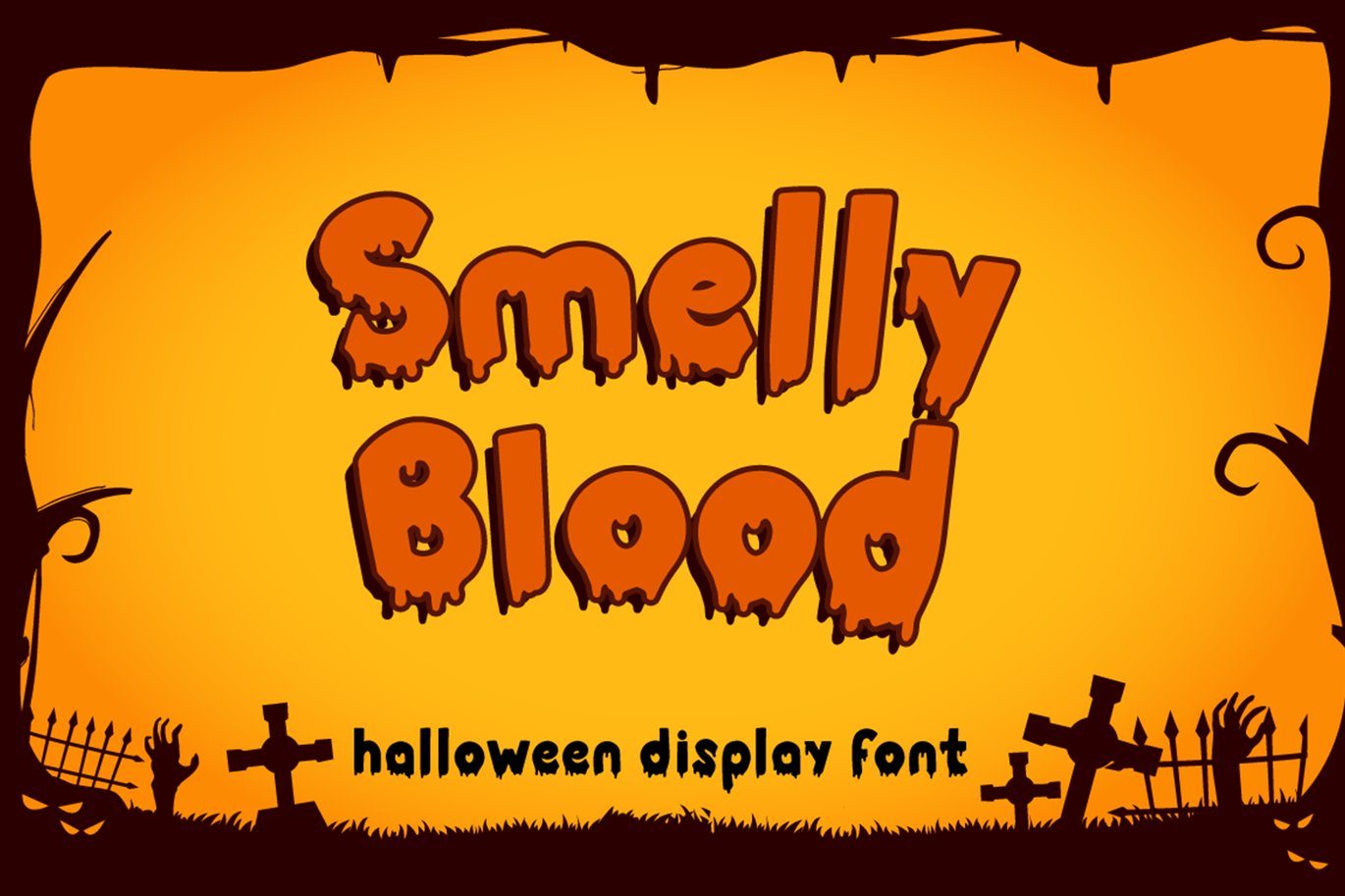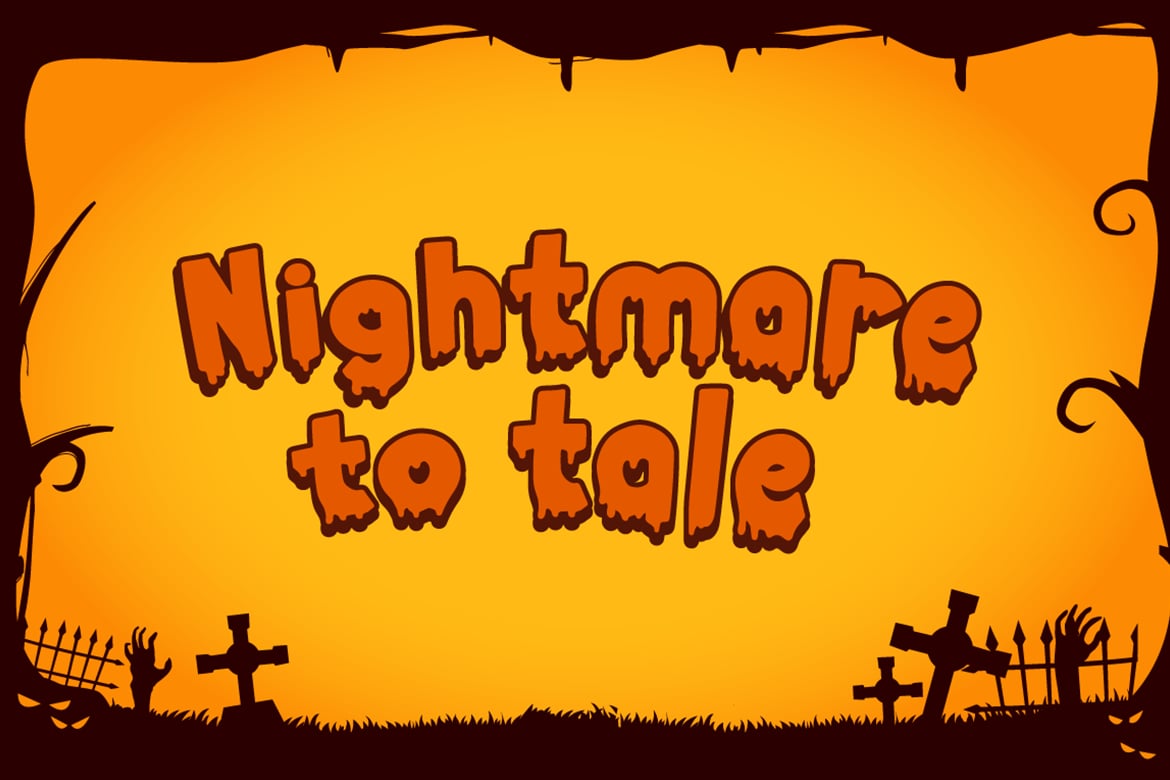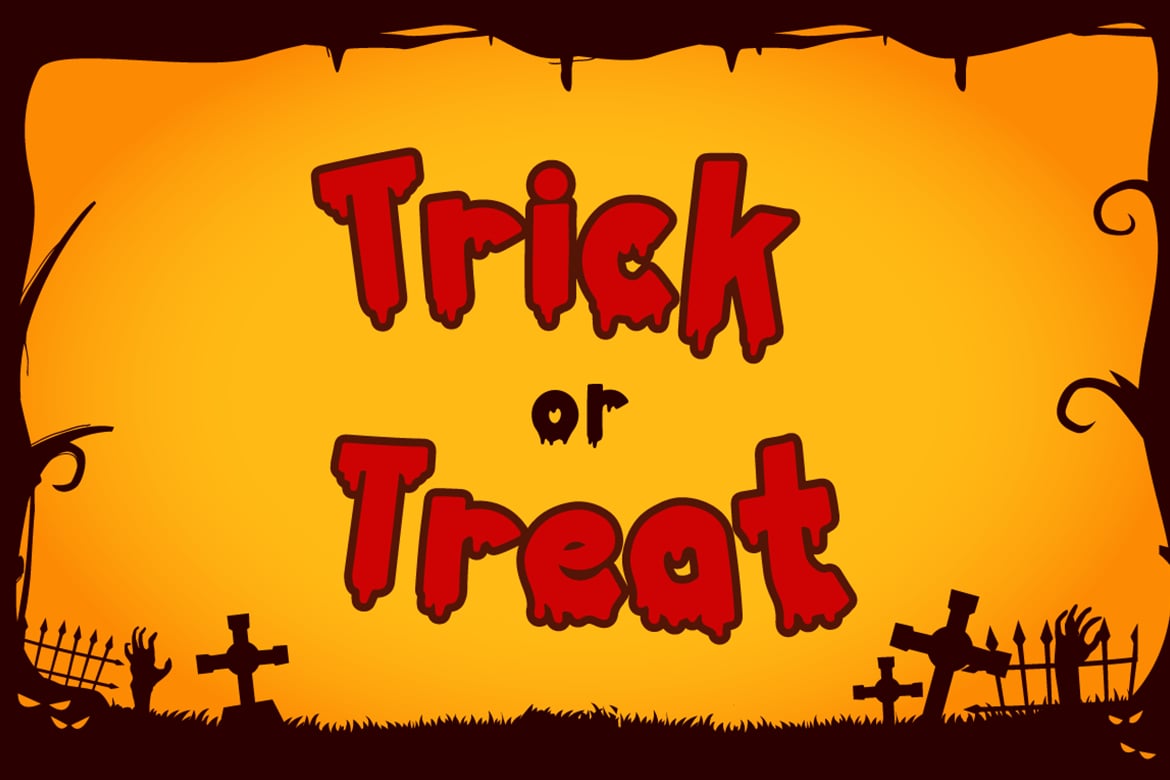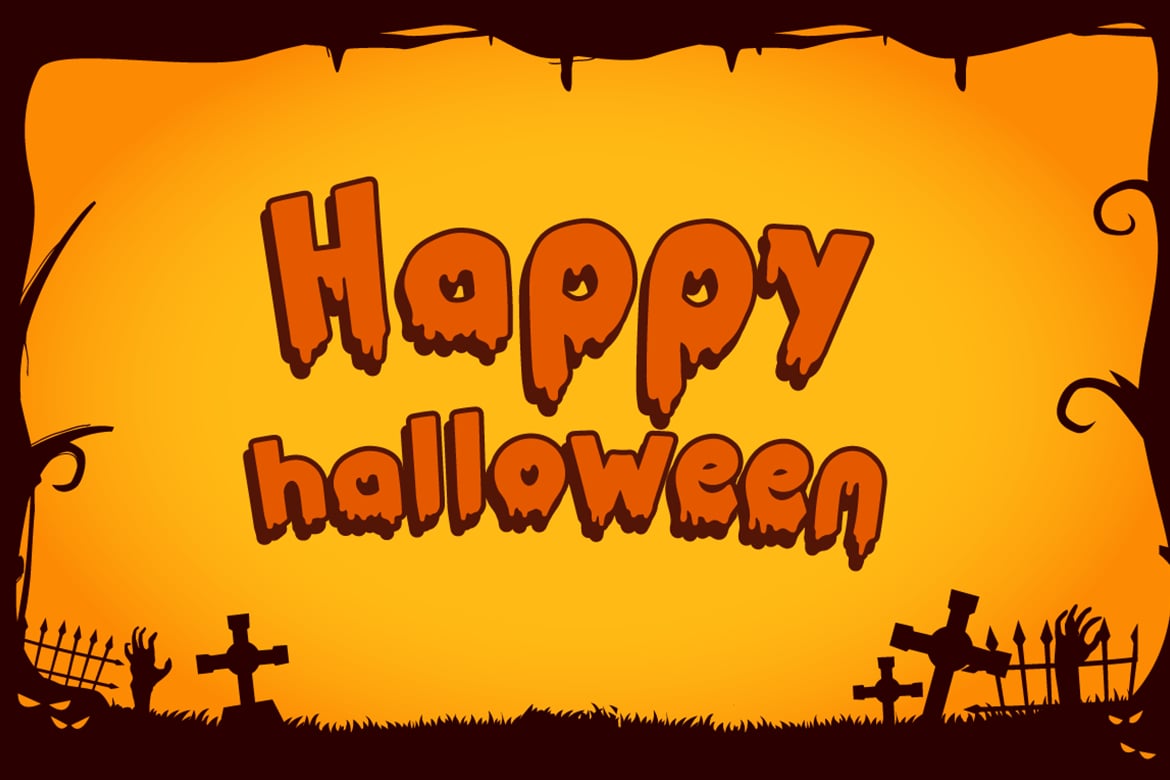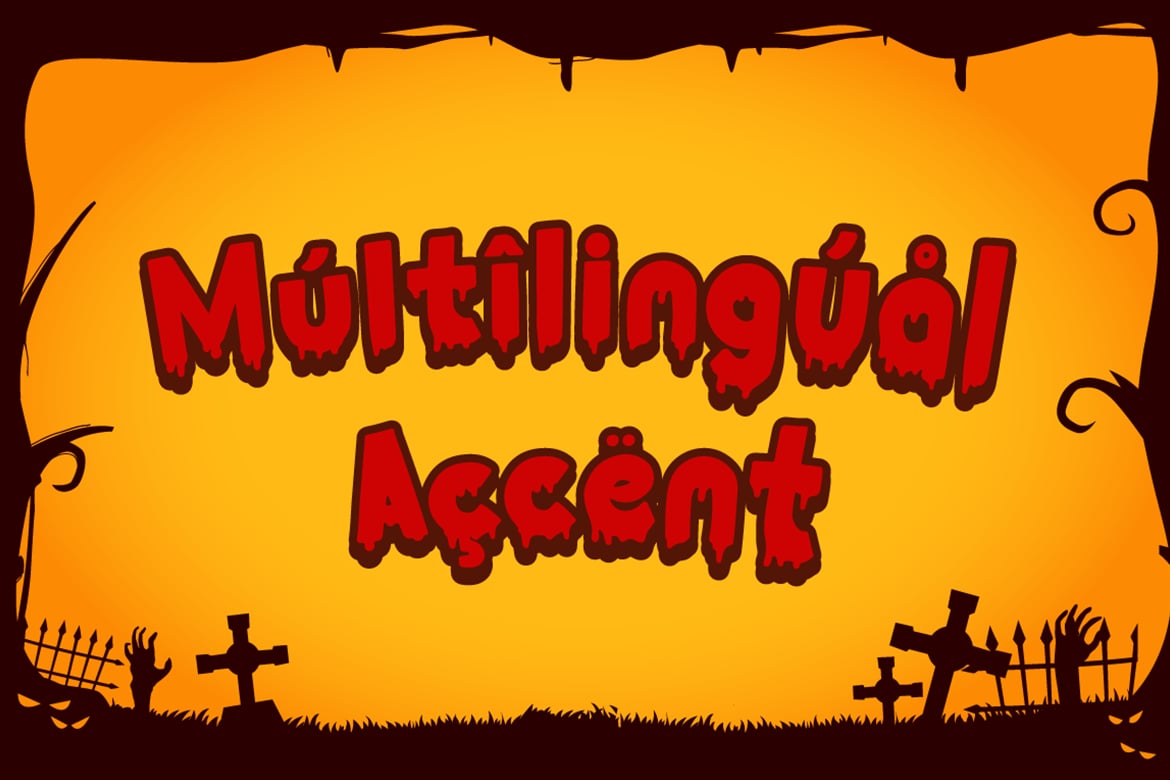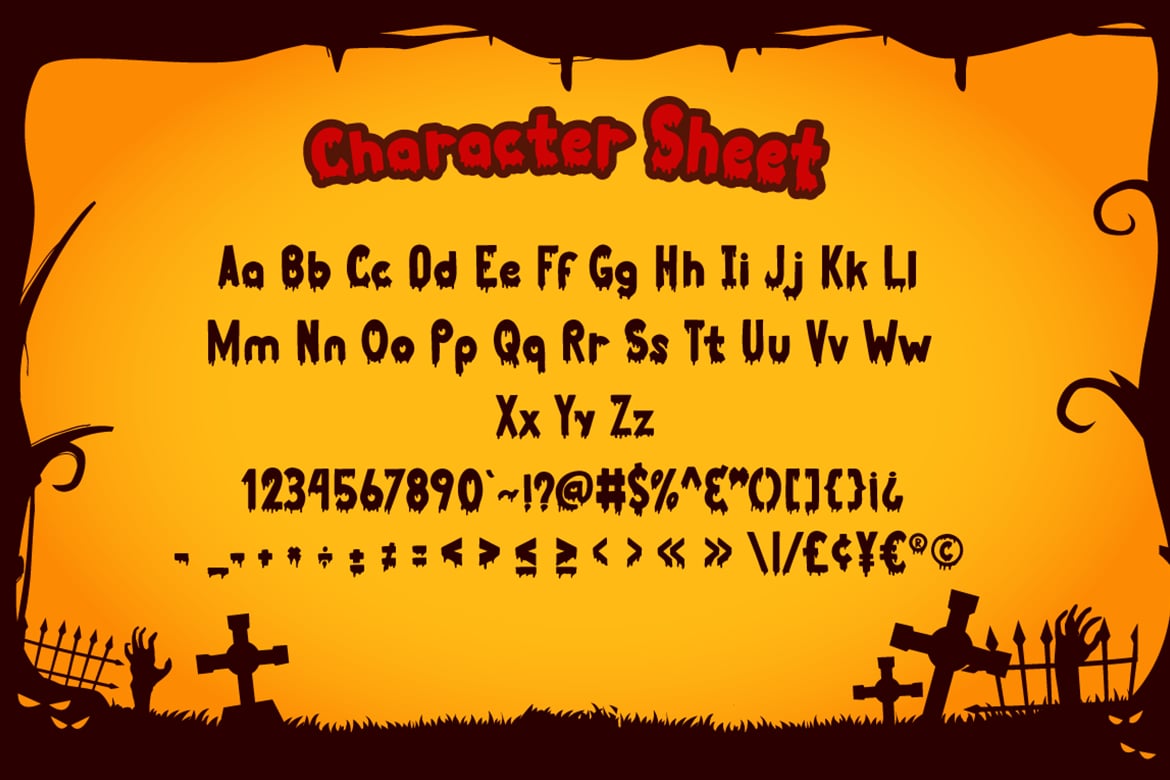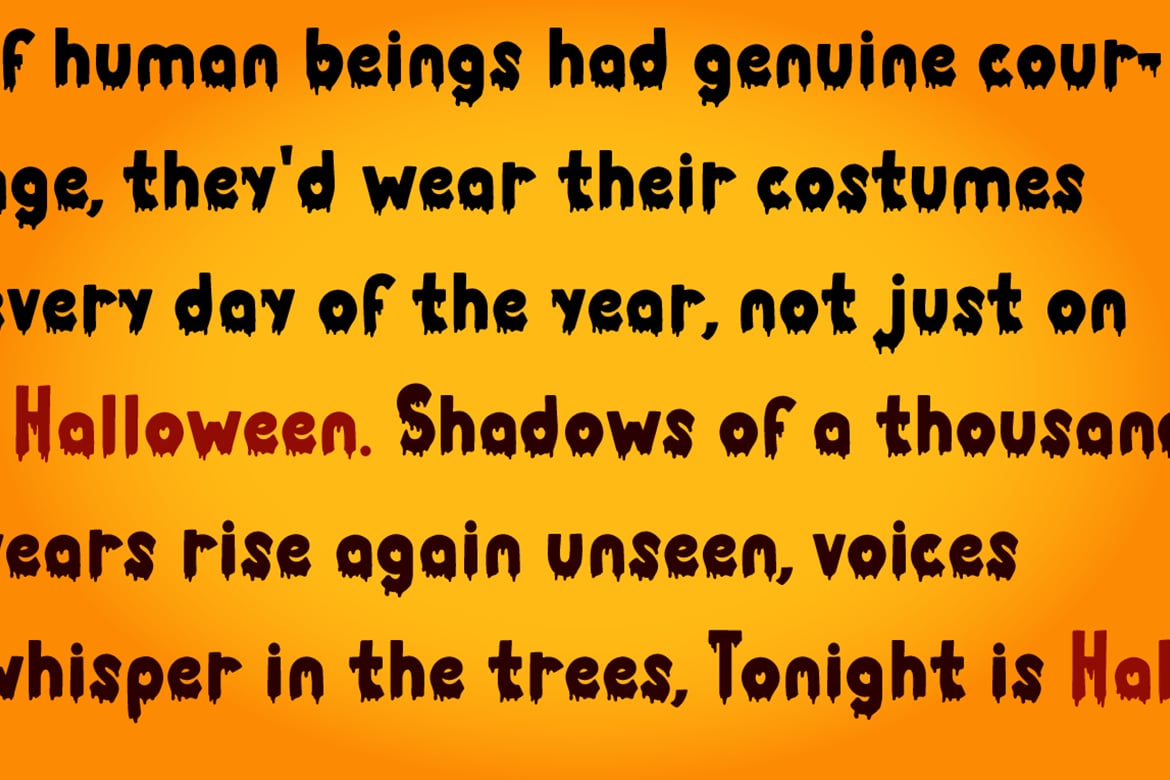
Smelly Blood – Halloween Font
Smelly Blood is a bold and quirky display font. Add this font to your creative ideas and notice how it will make them stand out!
- Multilingual Support (Afrikaans, Albanian, Catalan, Danish, Dutch, English, Estonian, Finnish, French, German, Icelandic, Italian, Norwegian, Portugese, Spanisch, Swedish, Zulu)